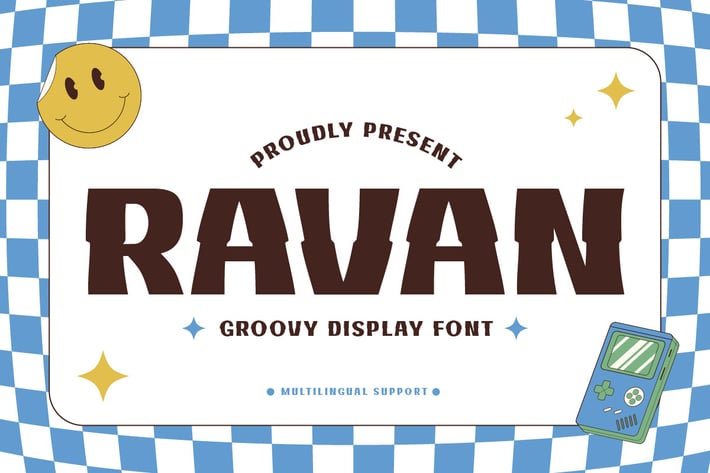
Ravan - Groovy Display Font
Ravan is a font that brings the fun. This groovy display font is all about creating a sense of enjoyment and excitement. Its unique, playful characters make it perfect for creating eye-catching headlines and logos that bring a smile to your audience’s face. With Ravan, your designs won’t just be fun, they’ll be unforgettable.